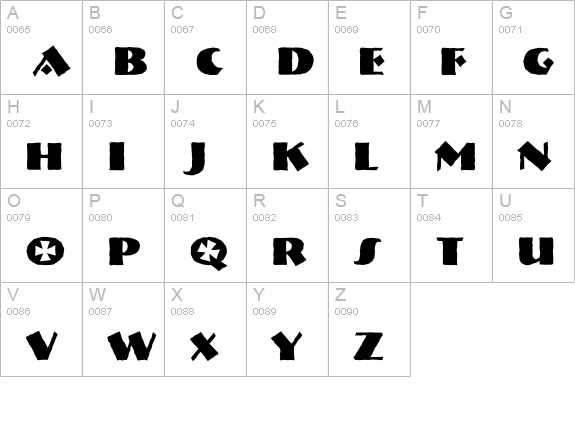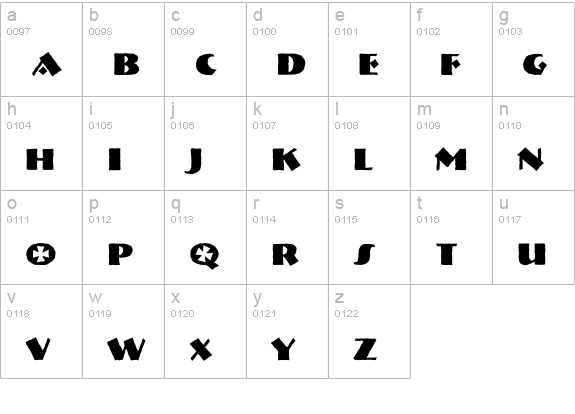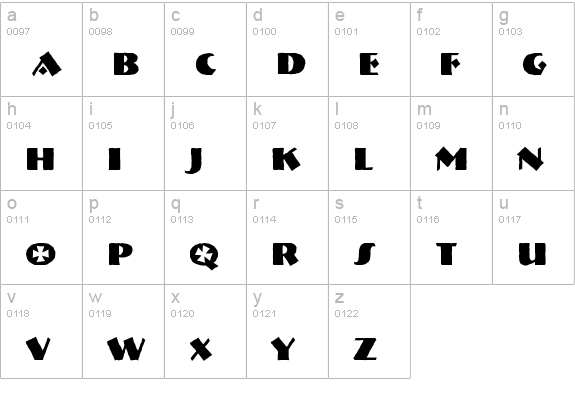
VTNervouzReich Boots Font Details
VTNervouzReich Boots is a stunningly bold and charismatic font that will grab attention and make a lasting impression. With its edgy and rebellious design, this font is perfect for projects that require a touch of attitude and individuality. The unique and eye-catching letterforms of VTNervouzReich Boots exude a sense of confidence and energy, making it a perfect choice for branding, headlines, posters, and any design that needs to make a statement. Its strong and dynamic appearance is sure to captivate audiences and add a touch of boldness to any project. What makes VTNervouzReich Boots even more enticing is that it is freely available to download at FontsMarket.com. This means that you can add this powerful font to your collection without any cost, making it an accessible and budget-friendly choice for designers and creatives alike. With VTNervouzReich Boots, you can unleash your creativity and effortlessly create designs that demand attention. So why wait? Download this incredible font for free at FontsMarket.com and elevate your design projects to new heights.